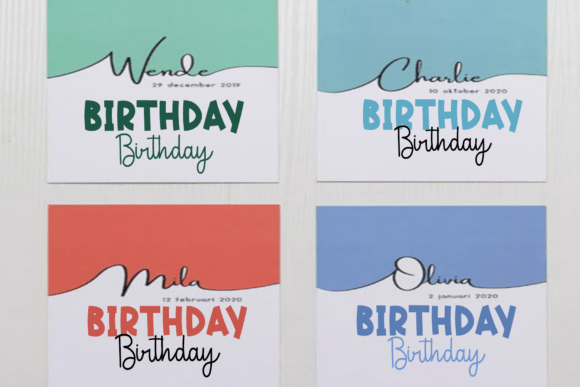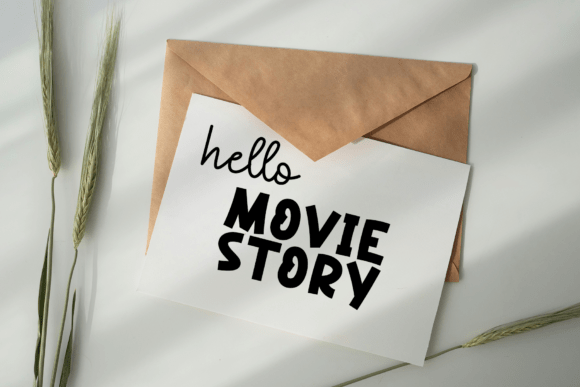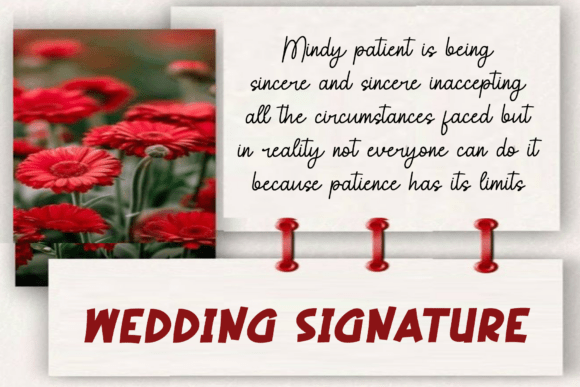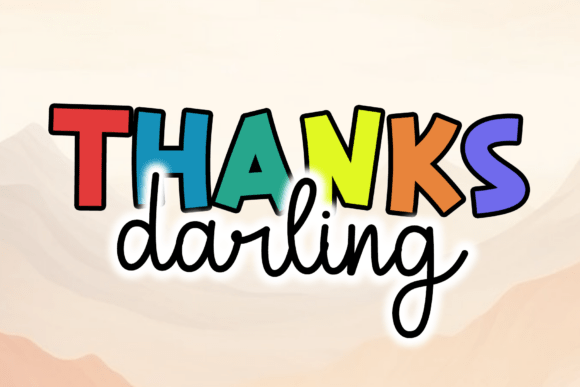
Introduction to Perfect Holidays Duo Font
Perfect Holidays Duo is a charming and joyful font duo that perfectly blends playful simplicity with an elegant handwritten style.
The combination of a tall, clean sans-serif (Perfect) and a smooth, flowing script (Holiday) creates a delightful balance — sweet, modern, and full of personality The Perfect font is bright and cheerful with its tall, rounded letters — perfect for headlines, quotes, and branding that needs a friendly and approachable vibe.
Key Features of Perfect Holidays Duo Font
Why Choose Perfect Holidays Duo Font?